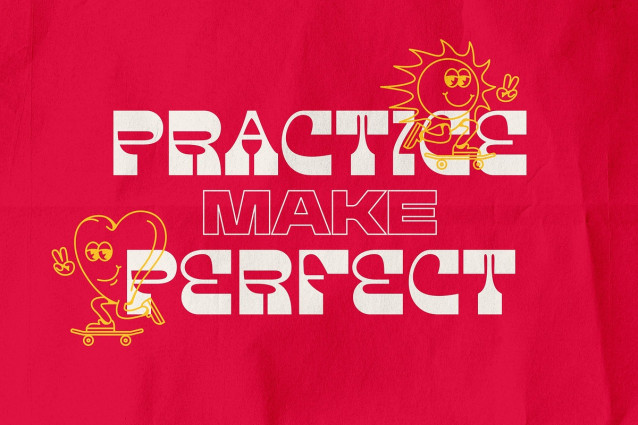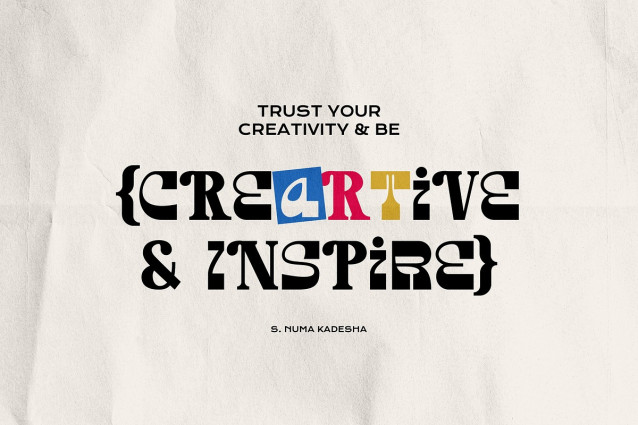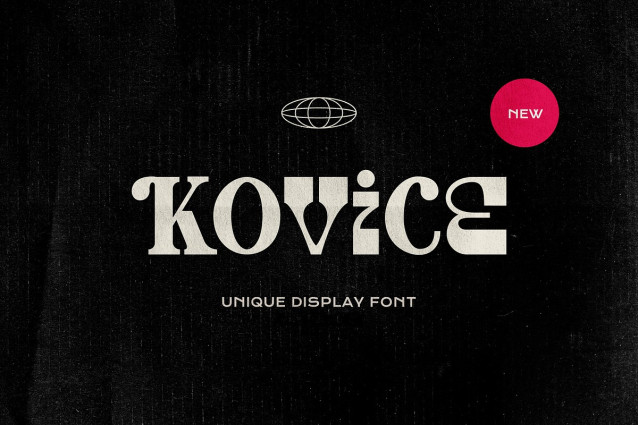
Kovice Font
Kovice Font is a vintage and eclectic display typeface, characterized by playful, experimental letterforms that combine vintage-inspired curves with modern geometric shapes. Each character creatively combines rounded edges, sharp cuts and unexpected touches, creating a unique and visually appealing character.
Kovice stands out in creative design contexts such as headlines, posters, branding, advertising, packaging, flyers, magazines, signs, postcards, labels, book covers and merchandise, as well as any project that aims for a unique and striking look.
The unique blend of letterforms creates a dramatic font that evokes a sense of nostalgia that blends perfectly with a contemporary style.